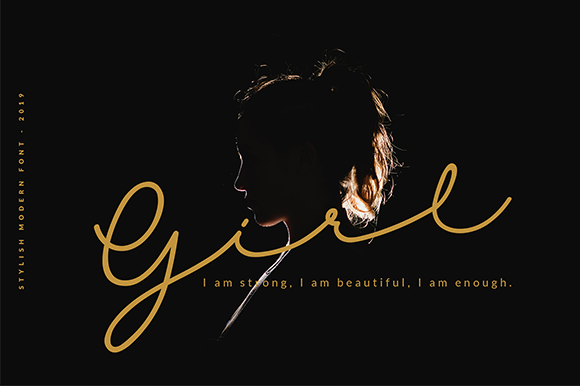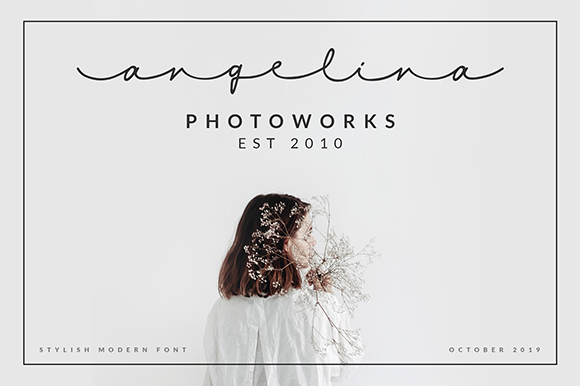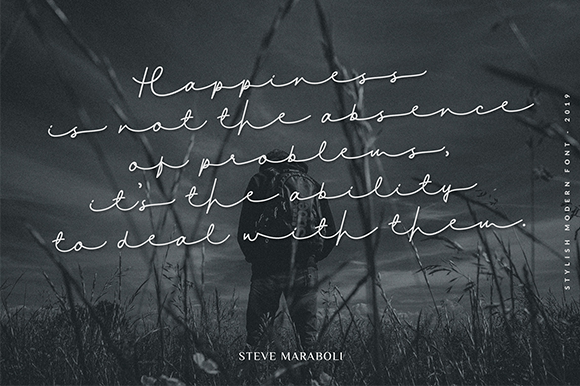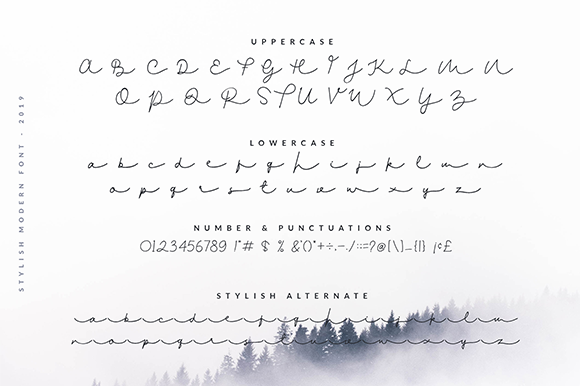
Gladys Font
About Gladys Font
Gladys is a cute and casual script font with an incredibly friendly feel. Whether you’re looking for fonts for Instagram or calligraphy scripts for DIY projects, this font will turn any creative idea into a true piece of art!